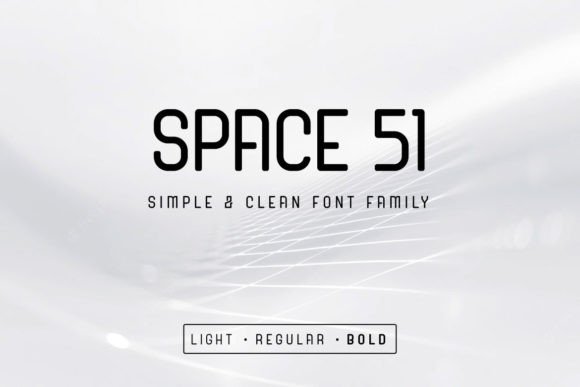
Immerse yourself in the enchanting realm of Space 51, a display font that sparks imagination and captivates hearts. Crafted by the ingenious minds at Mightyfire, this font is a whimsical masterpiece designed to bring a touch of youthful wonder to your creations.
Step into a world where letters dance with joy, where each stroke tells a story, and where imagination takes flight. Whether you're crafting captivating children's books, designing playful posters, or seeking a font that adds a sprinkle of magic to your work, Space 51 is your perfect companion.
Its simple yet captivating curves evoke a sense of nostalgia, harkening back to the carefree days of childhood. The clean lines and airy design create a sense of openness and invite readers to dive into the depths of your stories. With Space 51, your words will come alive, leaping off the page and captivating young minds.
This font is not merely a collection of letters; it's a gateway to a world of endless possibilities. Let your creativity soar as you explore the myriad ways Space 51 can transform your work. Its versatility knows no bounds, making it the perfect choice for a diverse range of projects.
So why settle for ordinary when you can embrace the extraordinary? Choose Space 51 and embark on a journey where imagination reigns supreme. Let your creations shine with the playful spirit and captivating charm that only this font can provide.